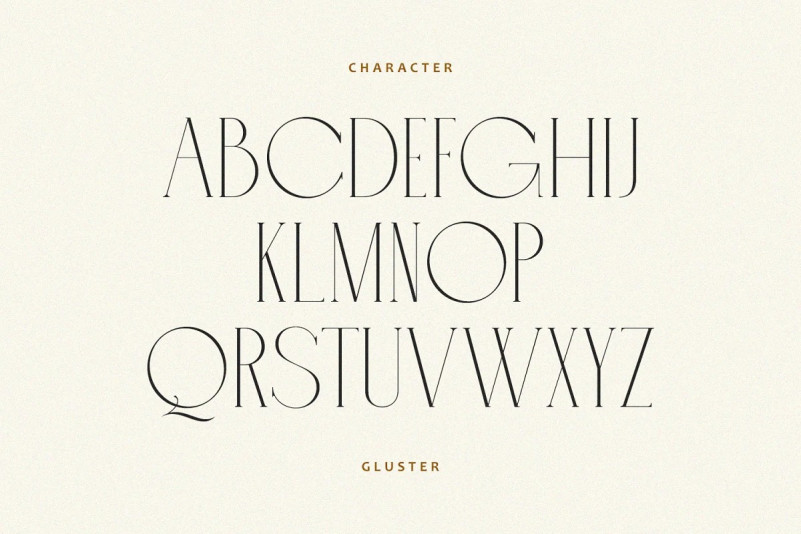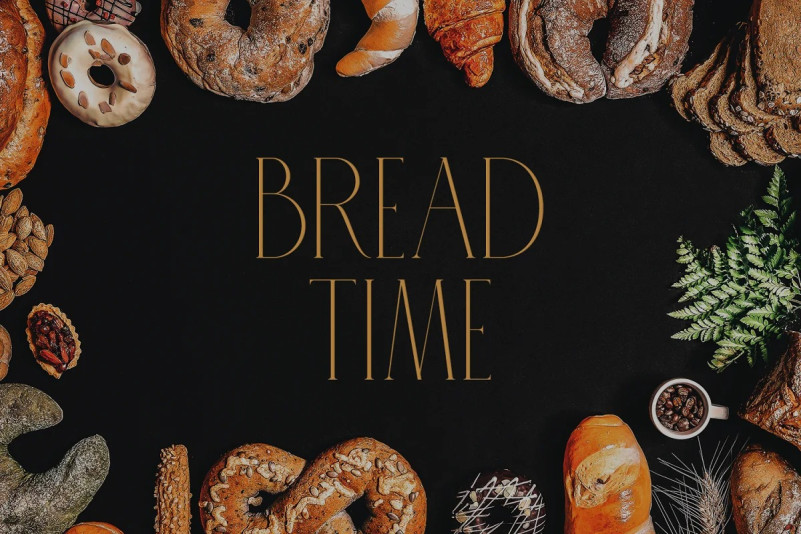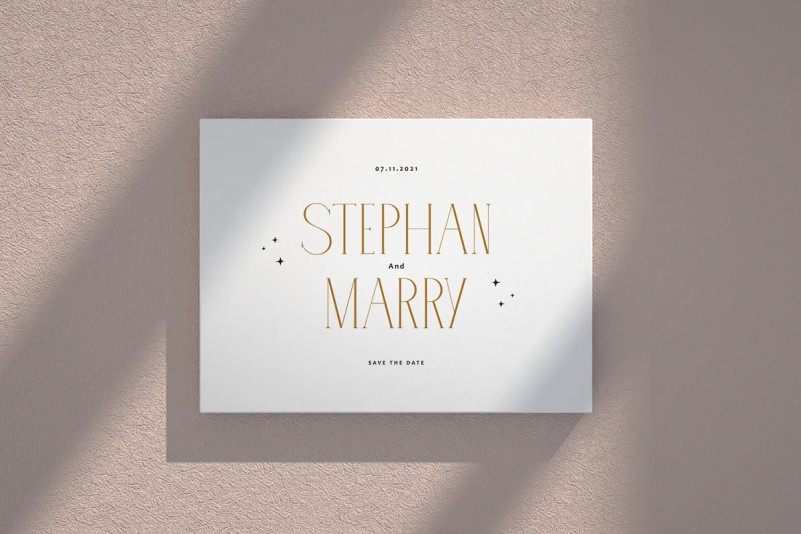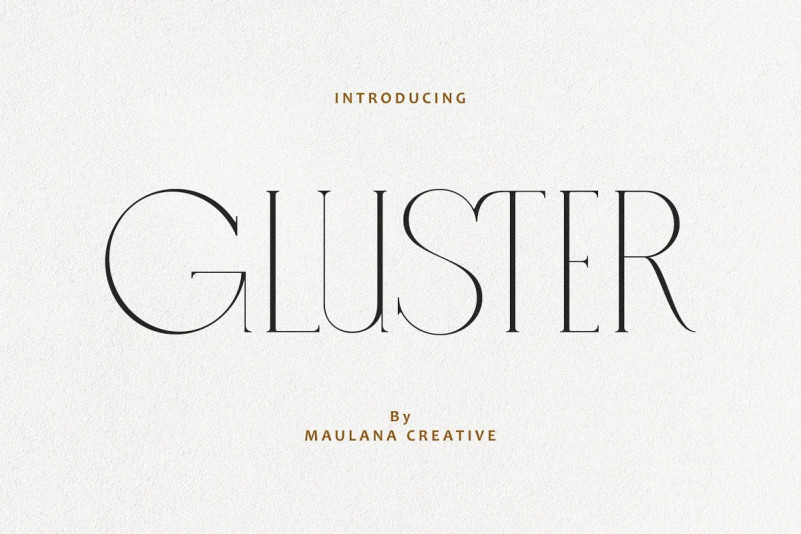
Gluster Serif Font is an elegant contrasting thin serif typeface. It’s designed and shared by Maulana Creative. Gluster is a great choice for fashion projects, headlines, titles, posters, packagings, covers and logotypes but can be also successfully used in some occasional texts.